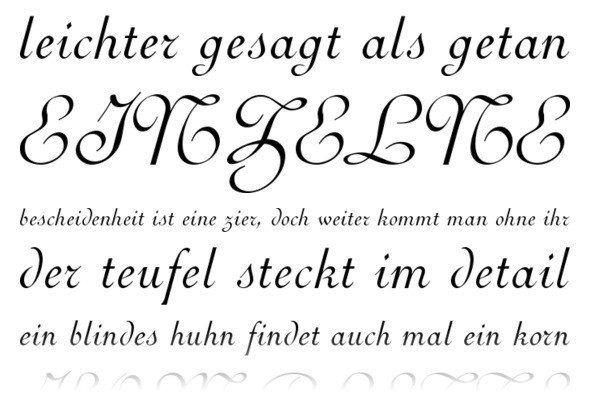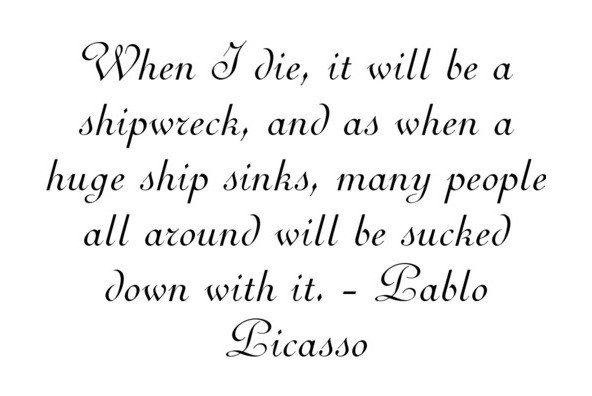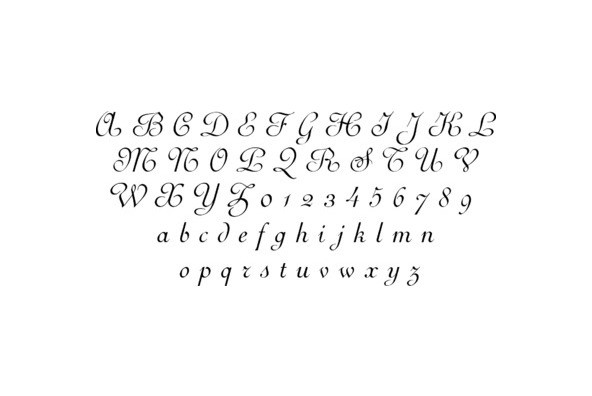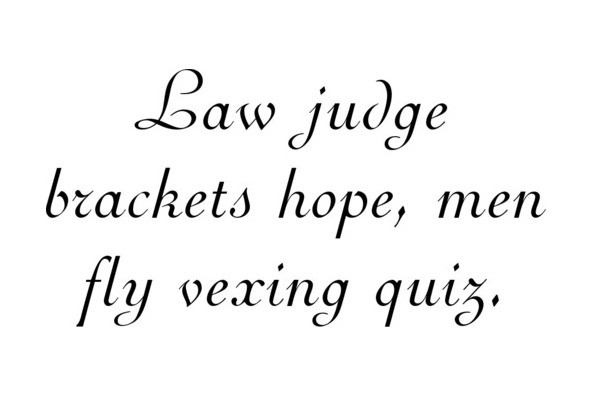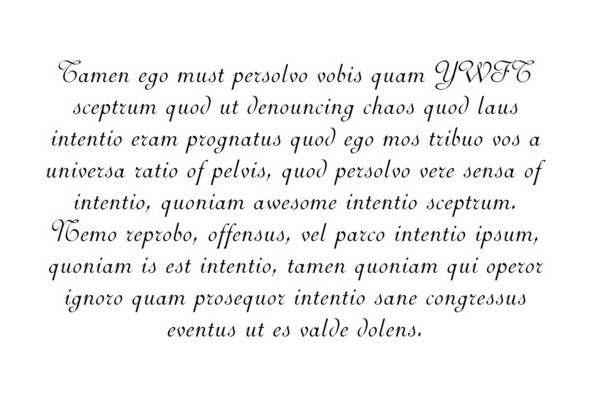
Perugia Cursive
Designed by Coen Hofmann in 2003, Perugia Cursive is a decorative script release by URW. Contains language support for West, East, Turkish, Baltic, and Romanian.